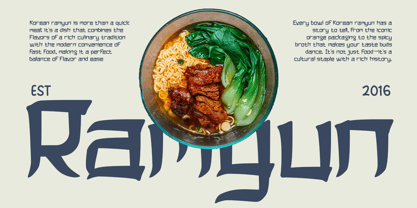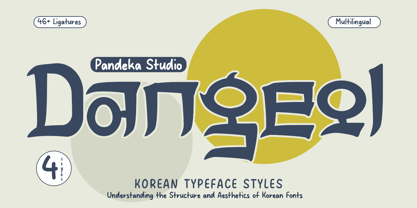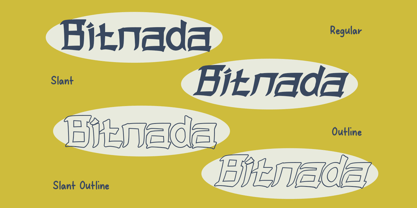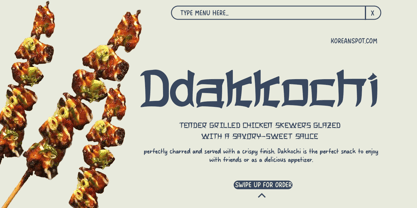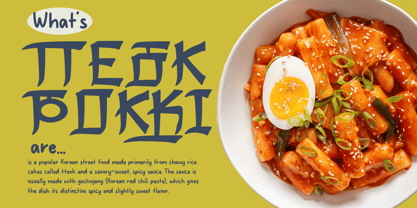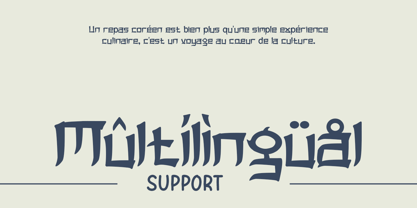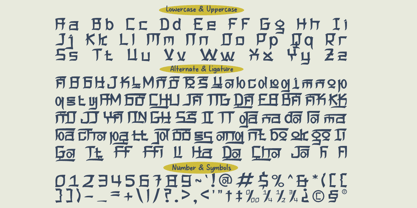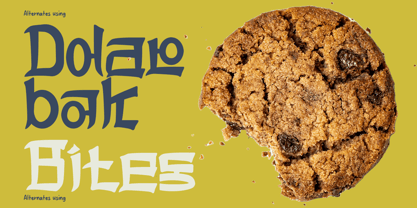
Dangeol
by Pandeka Studio
The Dangeol Font Family was designed by Sagara Nararya and published by Pandeka Studio. Dangeol contains 4 styles and family package options. More about this family
Dangeol - A versatile Korean-style font with 4 unique styles (Regular, Outline, Slant, Outline Slant). Perfect for Korean-inspired designs, it blends traditional and modern aesthetics, making it ideal for bold hangul typography, elegant branding, unique lettering, and creative projects. Whether for logos, posters, or cultural themes, Dangeol adds a touch of timeless beauty and sophistication.
• 4 Styles: Regular, Outline, Slant, Outline Slant
• Full Character Set: uppercase, lowercase, numbers, symbols, punctuation and ligature
• 46+ Ligatures and alternates
Designers: Sagara Nararya
Foundry: Pandeka Studio